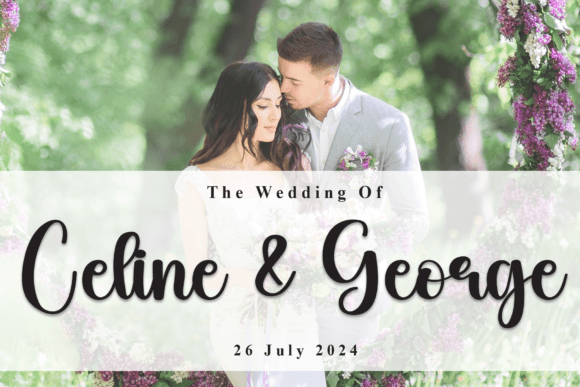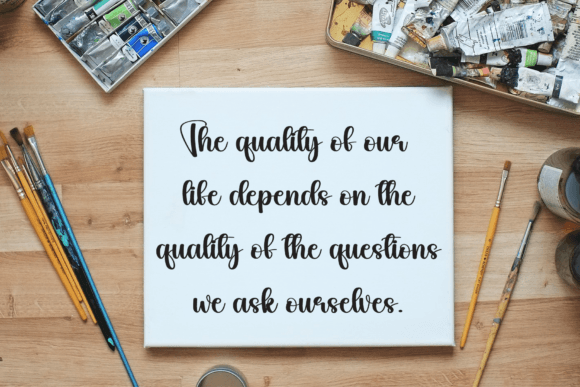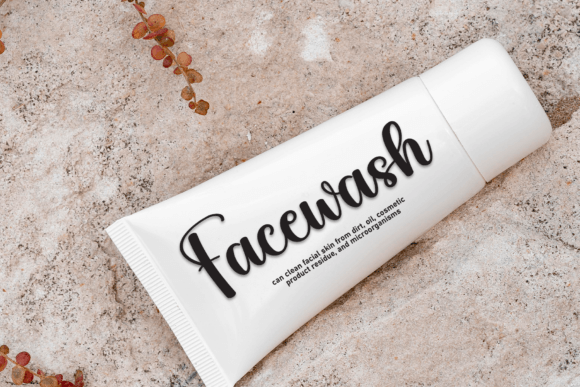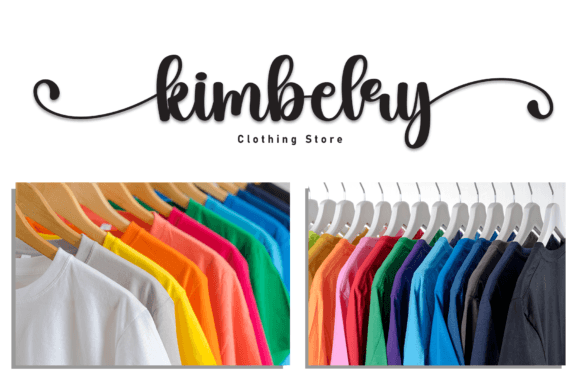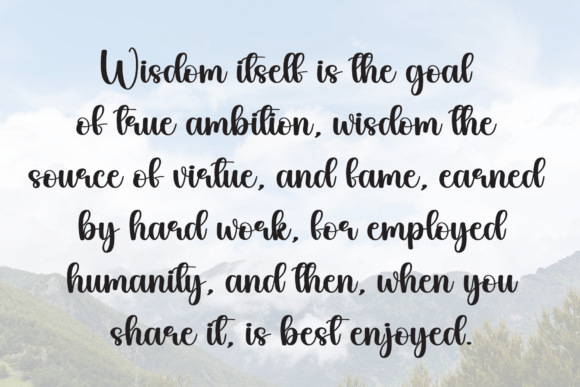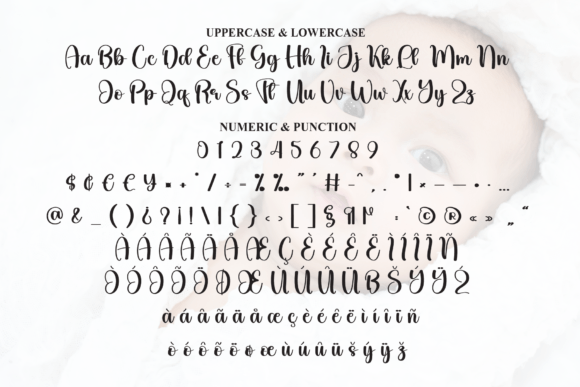
Baby Font: Elevate Your Designs with Elegance and Charm
In the world of typography, few fonts capture the essence of elegance and charm as beautifully as Baby Font. This stylish handwritten script font is designed to bring a touch of sophistication and warmth to any design project. With its flowing, graceful curves, Baby Font is perfect for designers and crafters looking to add a personal and refined touch to their work.
The Beauty of Baby Font
Baby Font is a true gem in the realm of script fonts. Its delicate strokes and carefully crafted letterforms exude a sense of luxury and refinement, making it an ideal choice for high-end designs. The font’s flowing curves and smooth lines create a sense of movement and fluidity, adding a dynamic touch to any design.
Perfect for Invitations, Logos, and Branding
One of the key strengths of Baby Font is its versatility. This font is perfectly suited for a wide range of design applications, including invitations, logos, and branding projects. Whether you’re designing a wedding invitation, a business logo, or a product label, Baby Font is sure to add a touch of elegance and sophistication.
Add a Personal Touch to Your Designs
Baby Font’s unique charm lies in its ability to add a personal touch to any design. The font’s handwritten feel and delicate strokes bring a sense of warmth and humanity to your projects, making them more relatable and engaging. Whether you’re designing for a client or working on a personal project, Baby Font is sure to help you create a lasting impression.
Key Features of Baby Font
- Stylish Handwritten Script Font: Baby Font is a beautifully crafted handwritten script font that exudes elegance and charm.
- Flowing, Graceful Curves: The font’s flowing curves and smooth lines create a sense of movement and fluidity, adding a dynamic touch to any design.
- Delicate Strokes: Baby Font’s delicate strokes bring warmth and creativity to your projects, making them more engaging and relatable.
- Perfect for Invitations, Logos, and Branding: The font is ideal for a wide range of design applications, including invitations, logos, and branding projects.
Tips for Using Baby Font
To get the most out of Baby Font, here are a few tips to keep in mind:
- Use it as a Headline Font: Baby Font is perfect for use as a headline font, where its elegant curves and delicate strokes can really shine.
- Pair it with a Sans-Serif Font: For body text, consider pairing Baby Font with a clean sans-serif font to create a beautiful contrast.
- Experiment with Colors and Textures: Don’t be afraid to experiment with different colors and textures to add depth and interest to your designs.
In conclusion, Baby Font is a truly exceptional script font that is sure to elevate your designs to the next level. With its elegant curves, delicate strokes, and versatile design, it’s perfect for a wide range of applications, from invitations and logos to branding and more. Whether you’re a designer, crafter, or DIY enthusiast, Baby Font is a must-have addition to your typography toolkit.